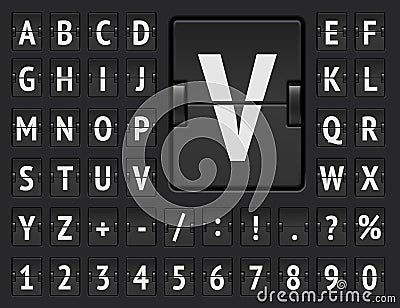
Black Terminal Mechanical Scoreboard Regular Font With Numbers To Display Destination And Timetable Vector Illustration
Airport terminal mechanical scoreboard alphabet with numbers for showing flight departure or arrival information. Black flip board regular font to display destination and timetable vector illustration.